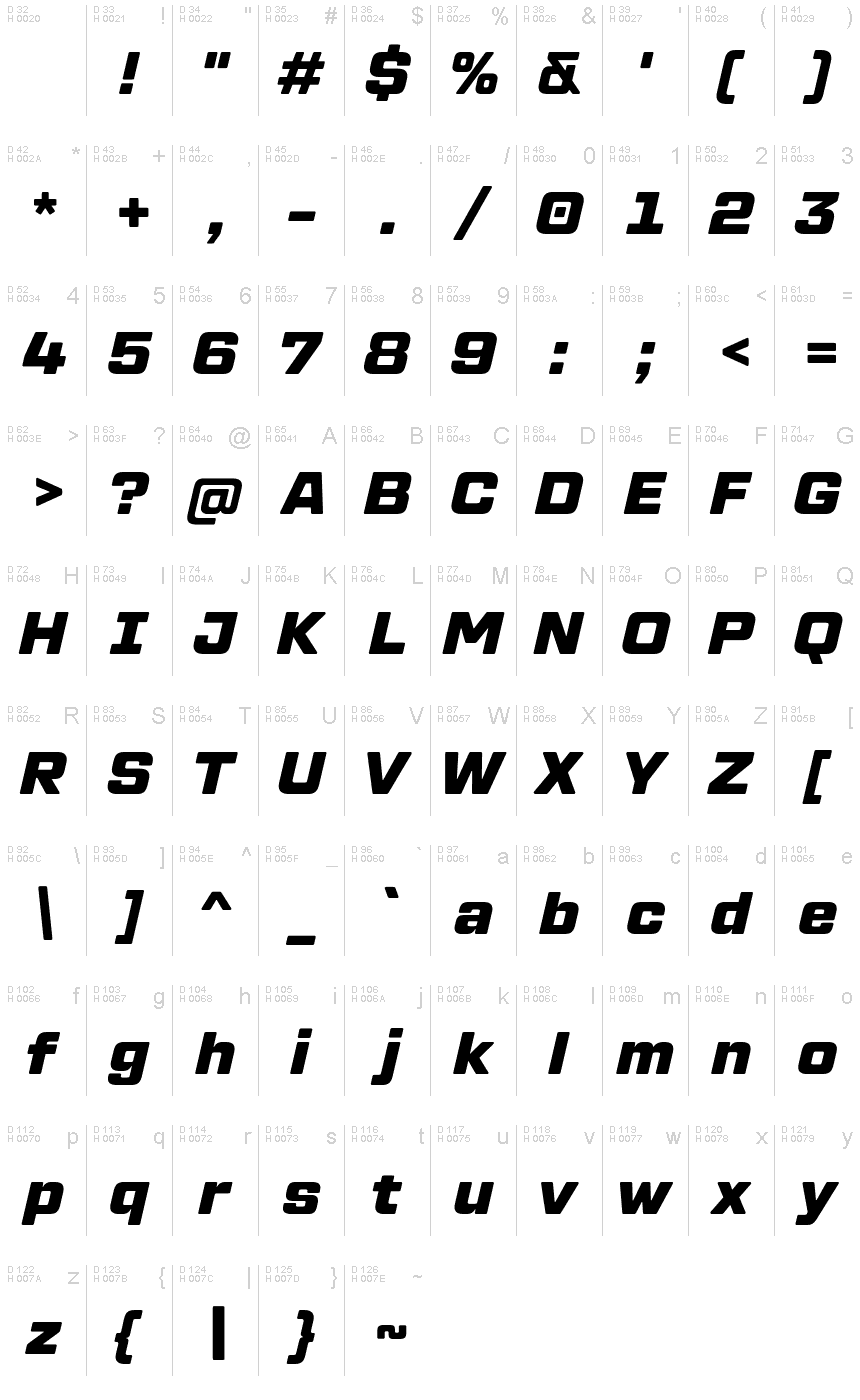
TT Lakes Neue Trial Black Italic
TT Lakes Neue Black Italic is a sleek and modern sans-serif font from the acclaimed TypeType Foundry. Its extra-bold weight and extra-expanded width make it perfect for projects that require a bold statement, such as headlines, logos, or branding materials. The italicized style adds an extra level of sophistication to any design. Use this font to create eye-catching advertising campaigns, stylish editorial layouts, or contemporary website designs. With TT Lakes Neue Black Italic, your projects will stand out and make a lasting impression on your audience.